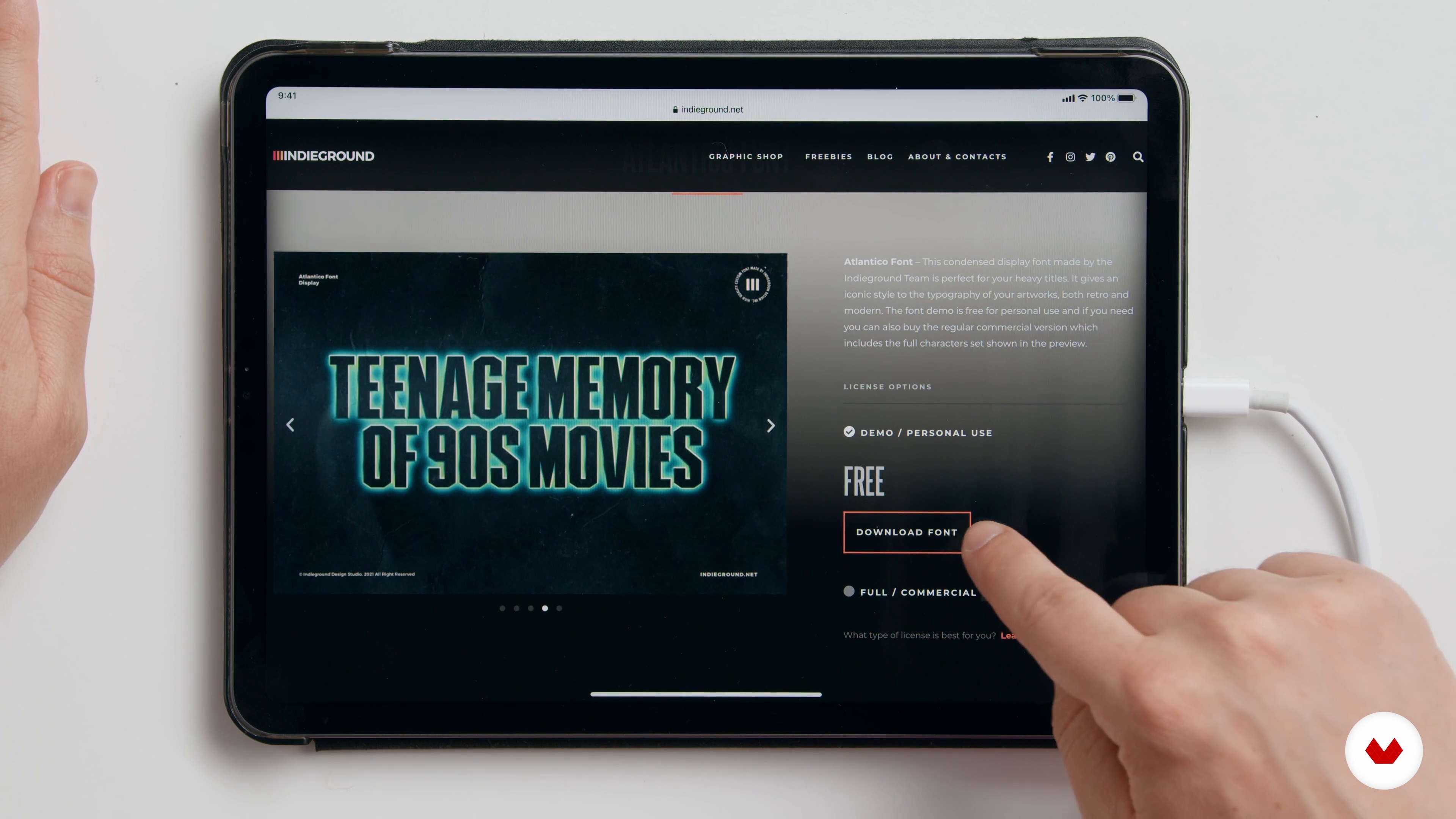
Retro Typographic Compositions: 80's Style
Typography and font choice
“In this lesson I will tell you which are the most used typographic characters in the retro-futuristic style and I will choose one for my writing. ”
“In this lesson. we will look together at the most popular fonts of the era and choose which one to use our project. I often visit Fonts in Use to find fonts by the time period they were popular. Let me demonstrate how this site can help you discover and identify different font styles from various eras. Let's immediately enter the keyword. 1980s. As you can see. all the results feature graphics originating from the 80s. Below each graphic. the specific font used is displayed for easy We are searching for a Ponsan Serif. Let's keep scrolling through the images to find the font that best with ...”